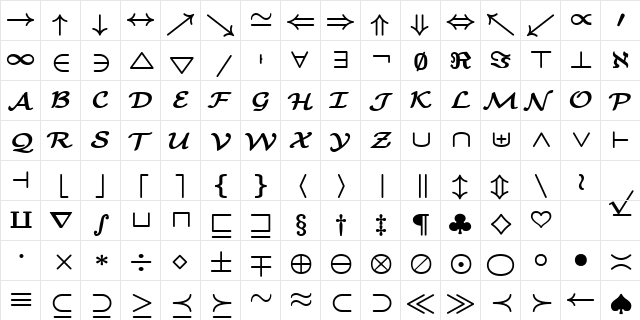
cmbsy7 Regular
Design Context for cmbsy7 Typeface
cmbsy7 takes a measured approach to typography — its balanced proportions and neutral character make it a reliable workhorse for both digital and print work.